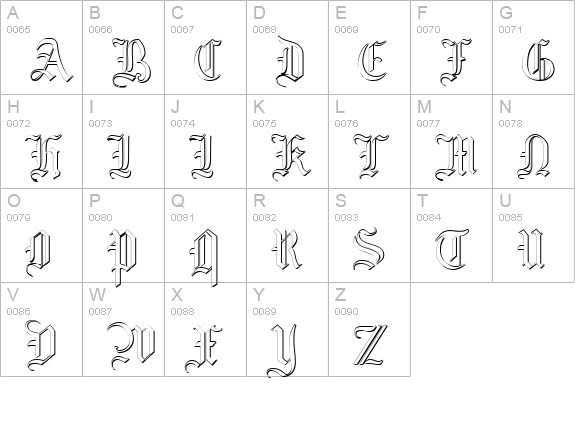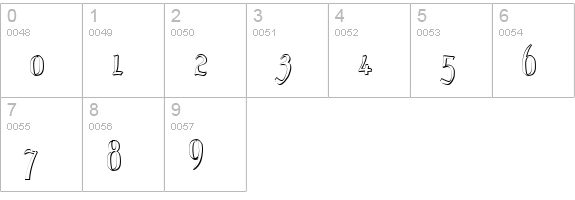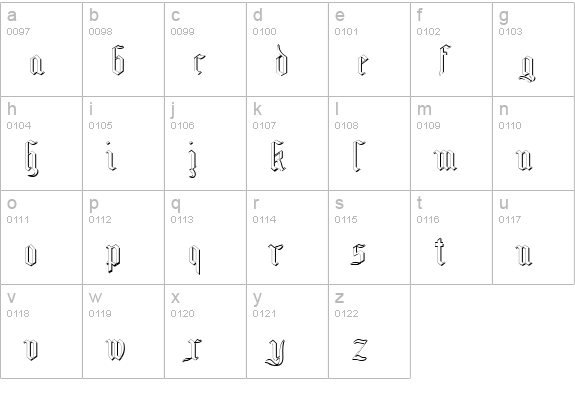
MottisfontNo4 Font Details
MottisfontNo4 font is a beautifully crafted typeface that exudes elegance and sophistication. Its delicate lines and intricate details make it perfect for adding a touch of class to any design project. This font is versatile and can be used for a wide range of applications, from invitations to branding to editorial design. What sets MottisfontNo4 font apart is its timeless aesthetic and classic appeal. The flowing curves and graceful strokes give this font a sense of refinement and refinement that is sure to elevate any design it is used in. The best part about MottisfontNo4 font is that it is completely free to download at FontsMarket.com. Whether you are a seasoned designer looking to add a new font to your collection or a novice designer just starting out, this font is a must-have for your toolkit. Download MottisfontNo4 font today and give your designs a touch of elegance and sophistication.